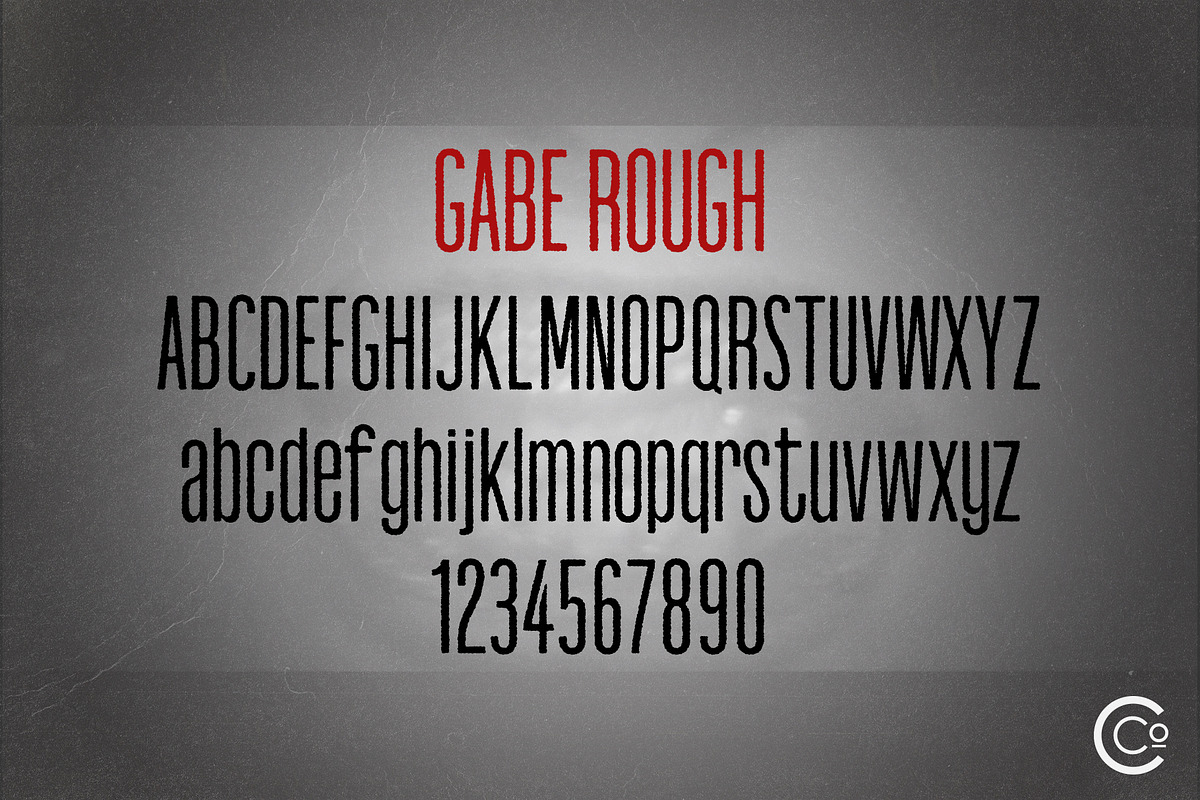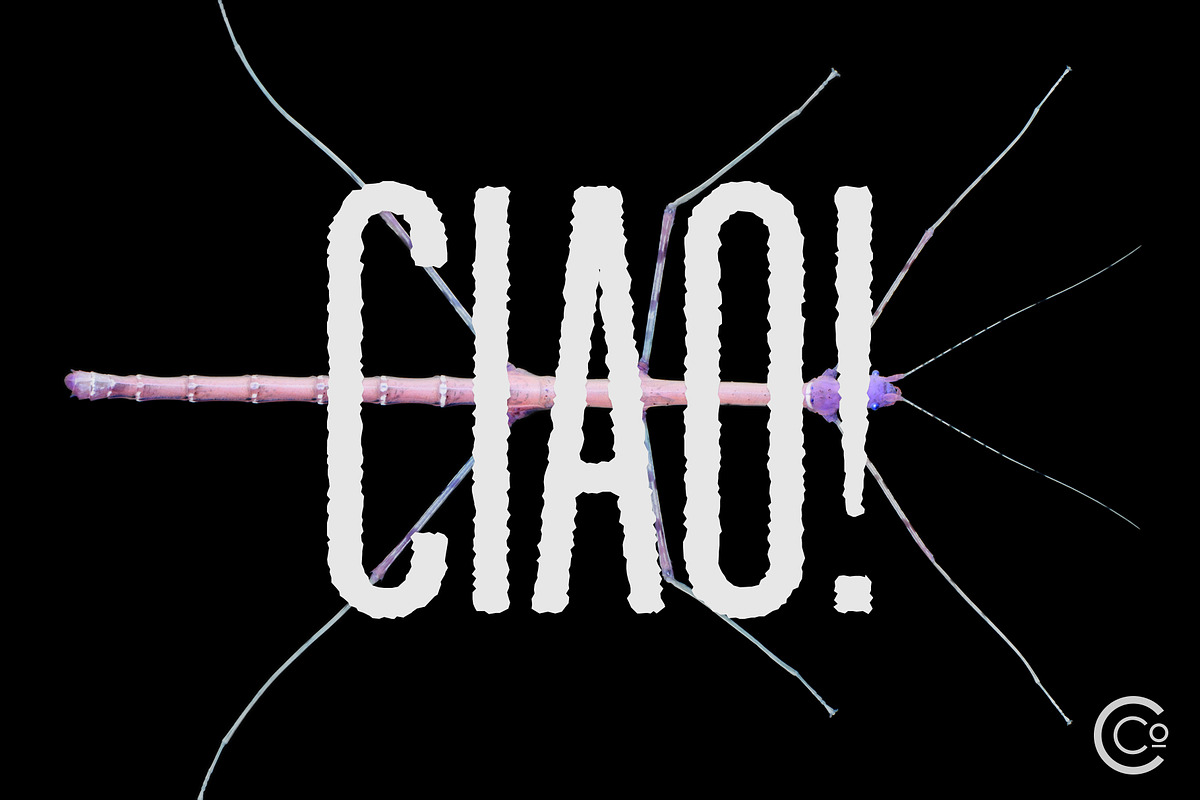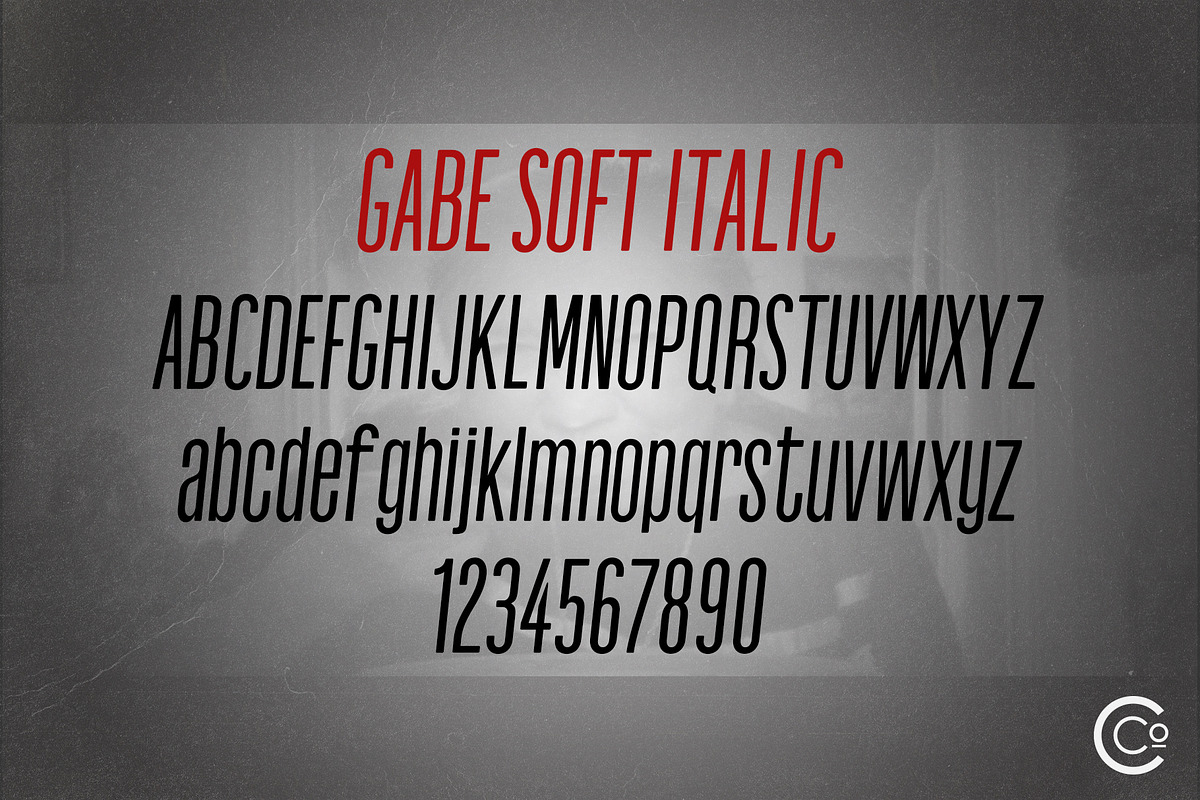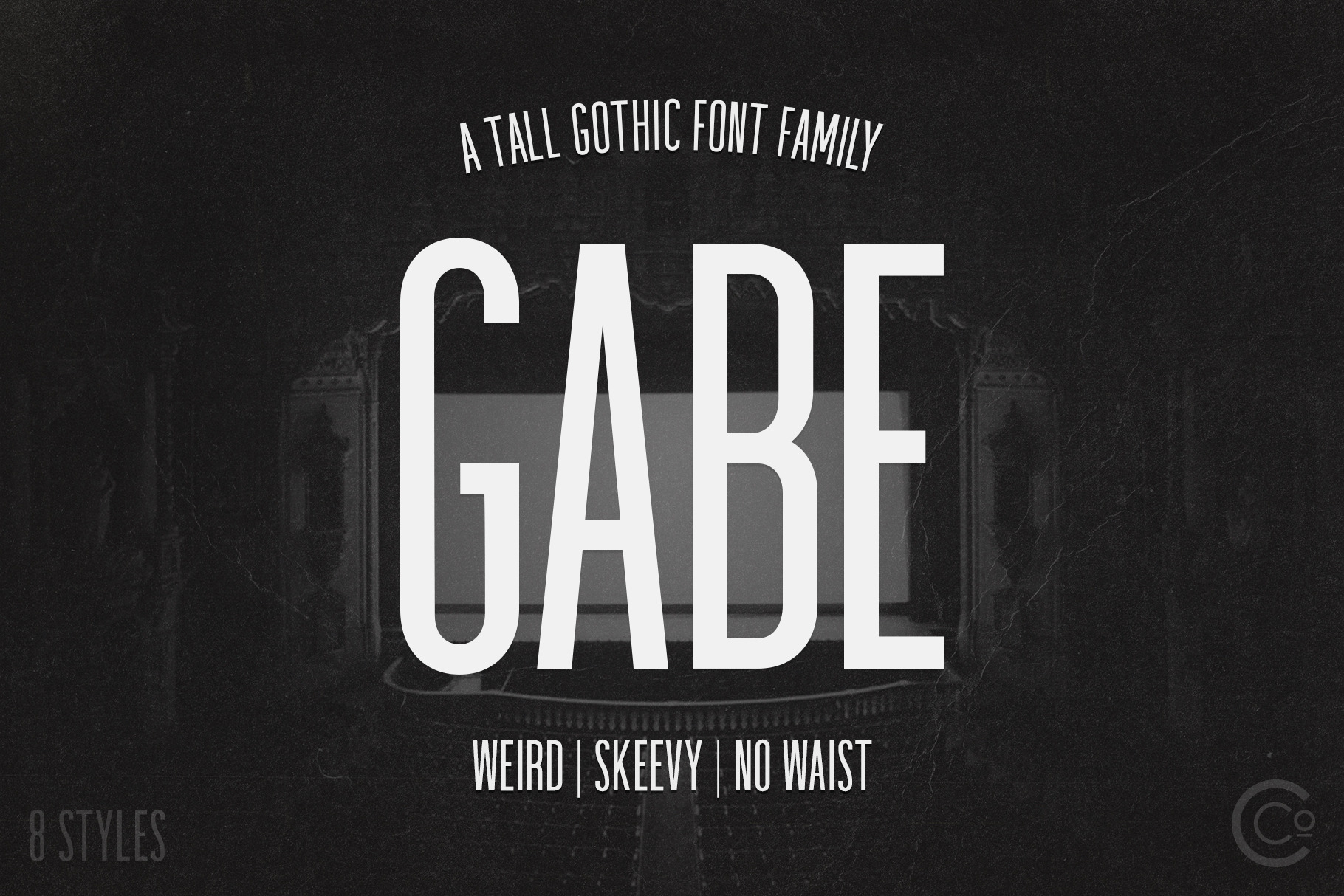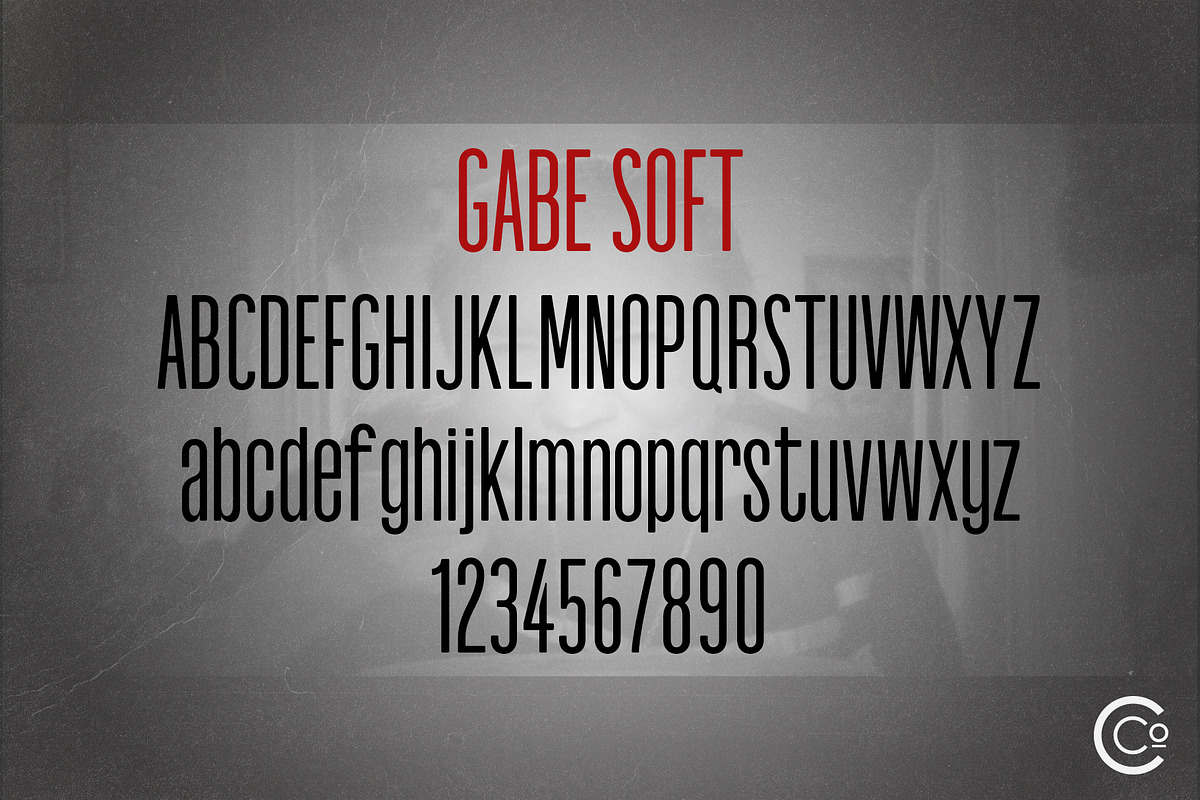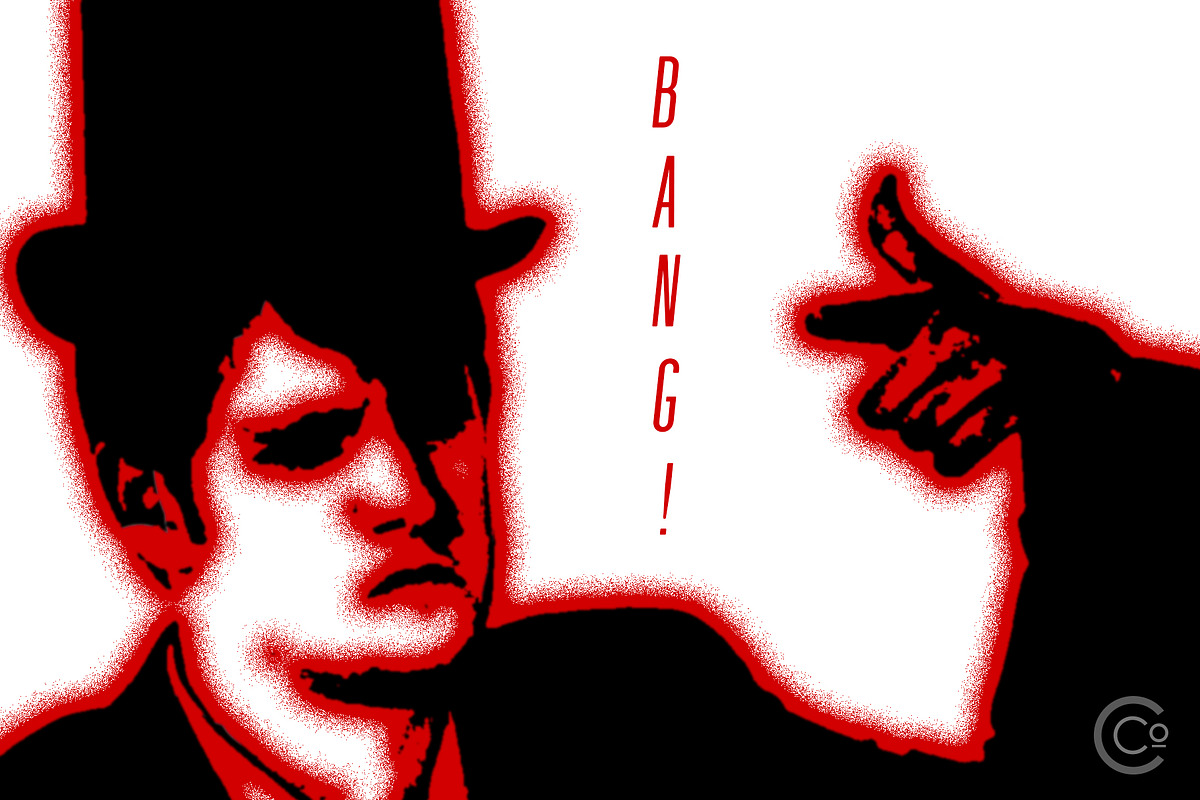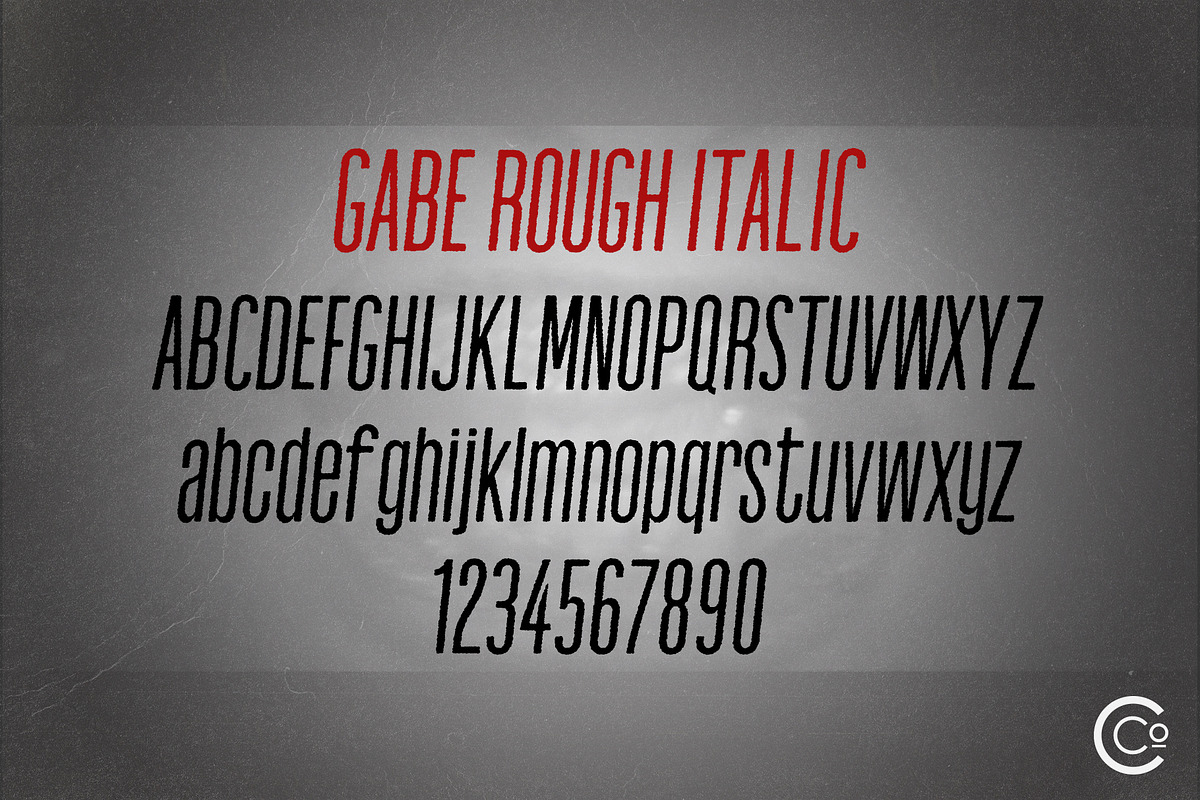
Gabe Sans - Tall Gothic Font Family
Inspired by the gothic and the grotesque typefaces of the 19th & 20th century, GABE is a modern tall skeevy sans-serif typeface with no waist. Designed for optimum legibility, its clean, geometric look is perfect any project!
The Gabe Family Typeface includes:
- Italic
- Rounded
- Rounded Italic
- Rough
- Rough Italic
- Soft
- Soft Italic.